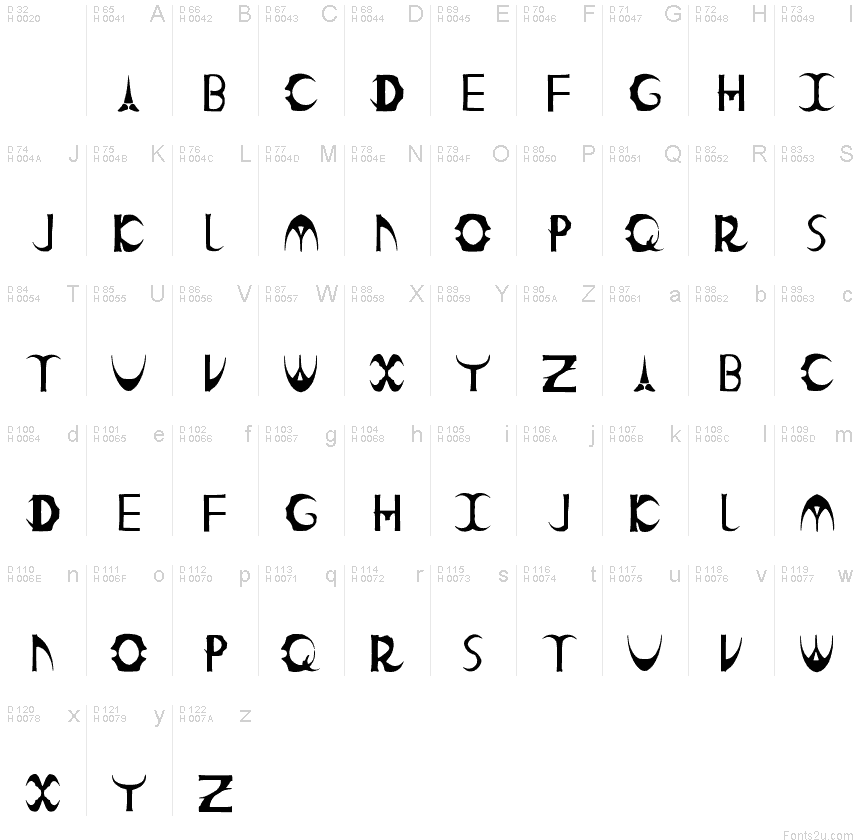
countkinski
I only have it set up for capital letters right now. No lowercase, numbers, or symbols, or non-English characters. Enjoy this kooky little font dedicated to the great Klaus Kinski and his electrifying performance in Werner Herzog's Nosferatu.